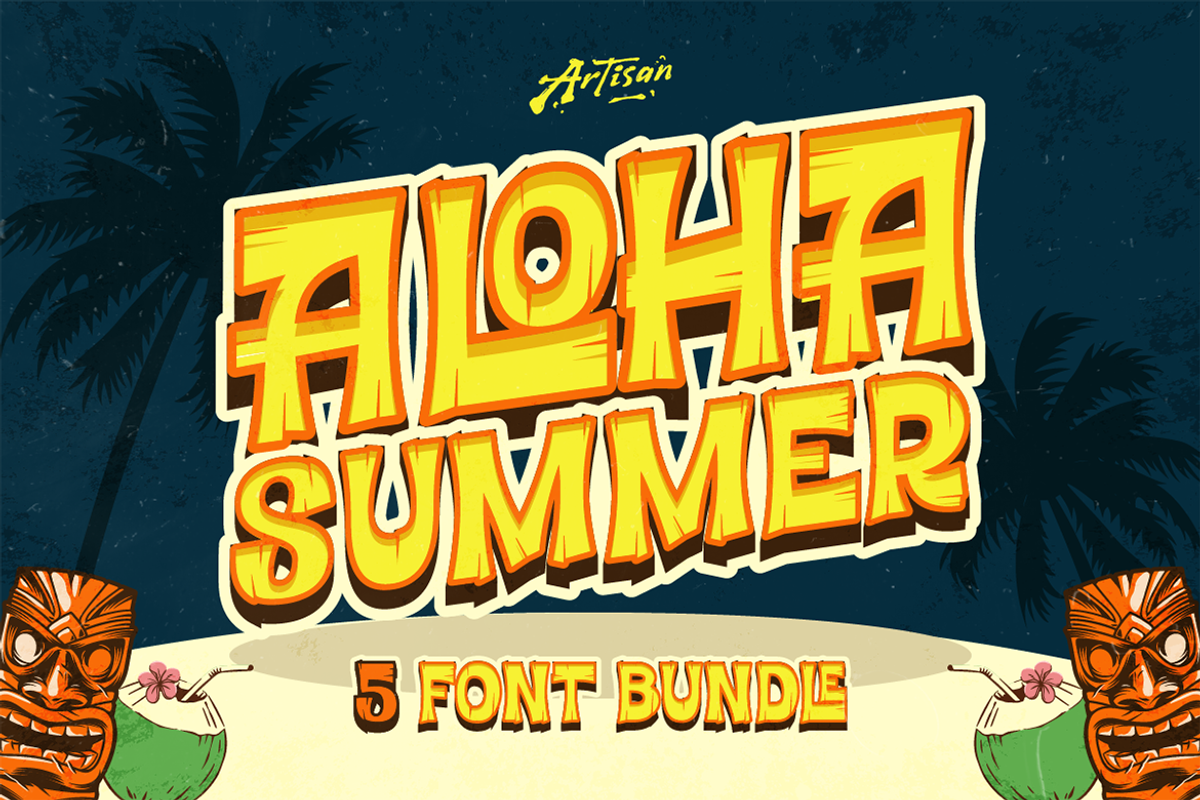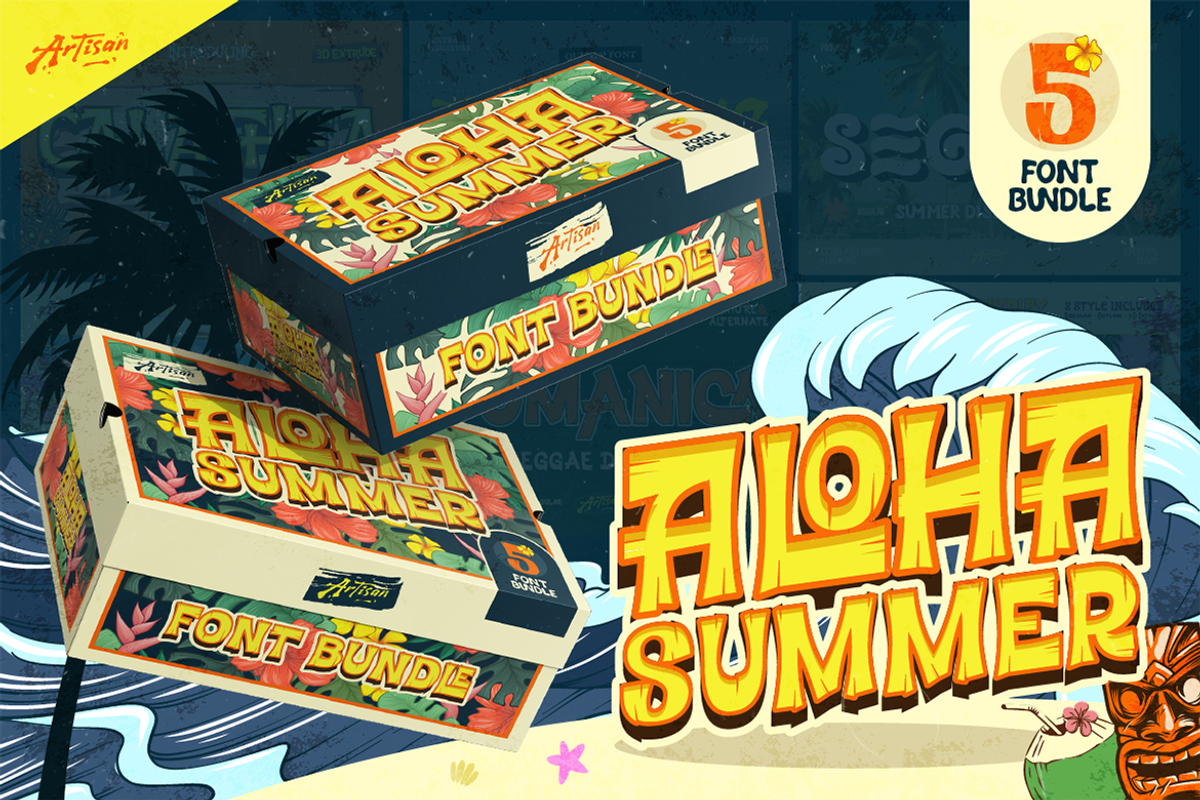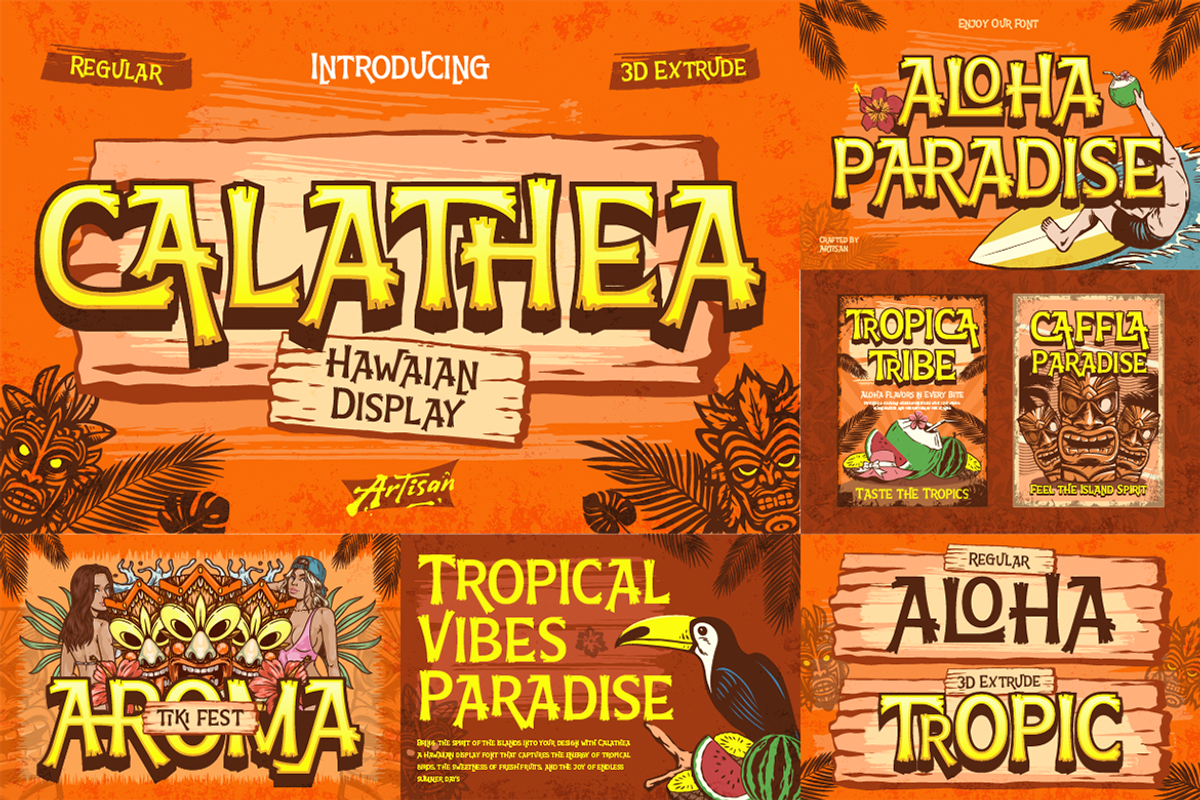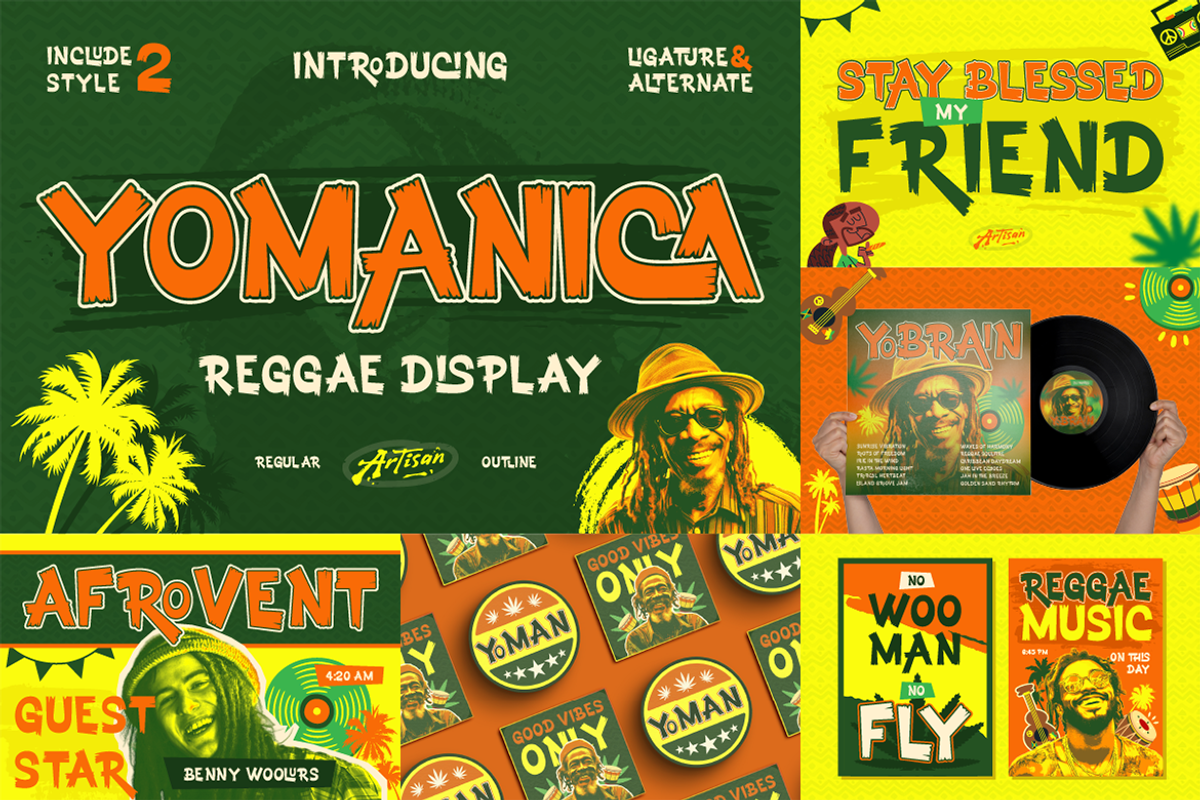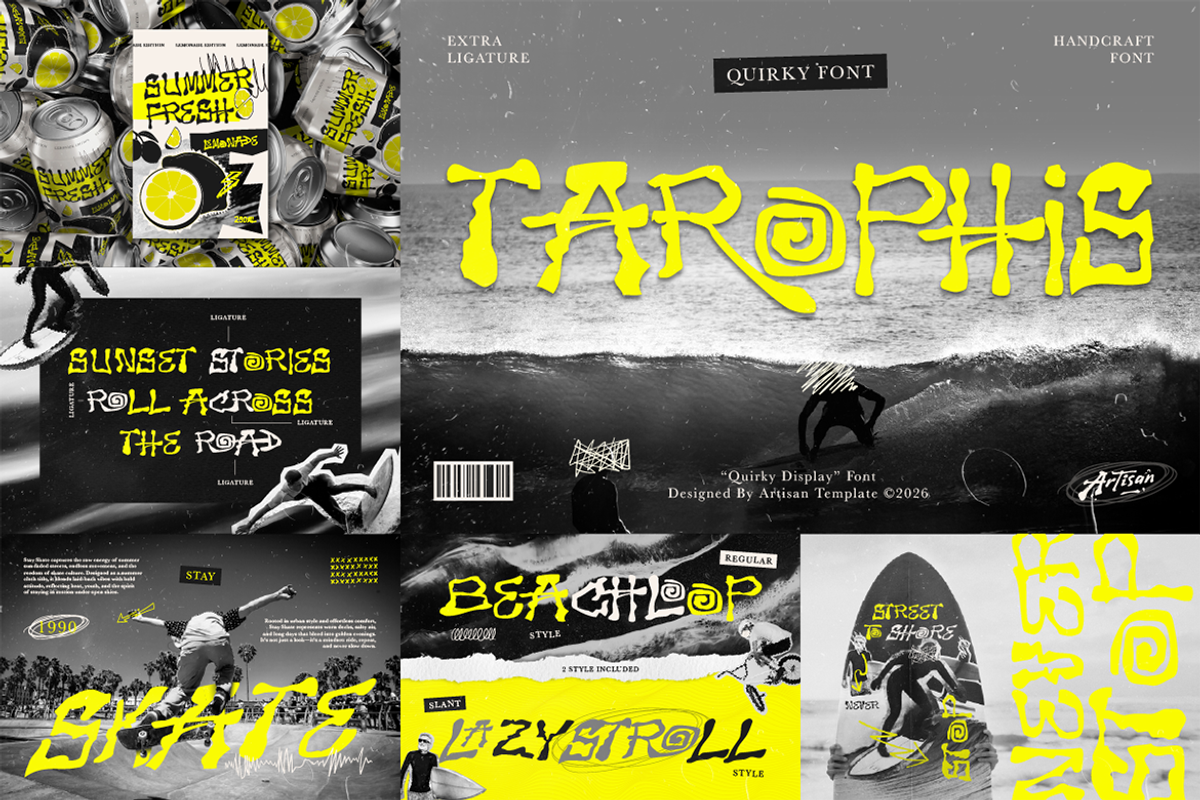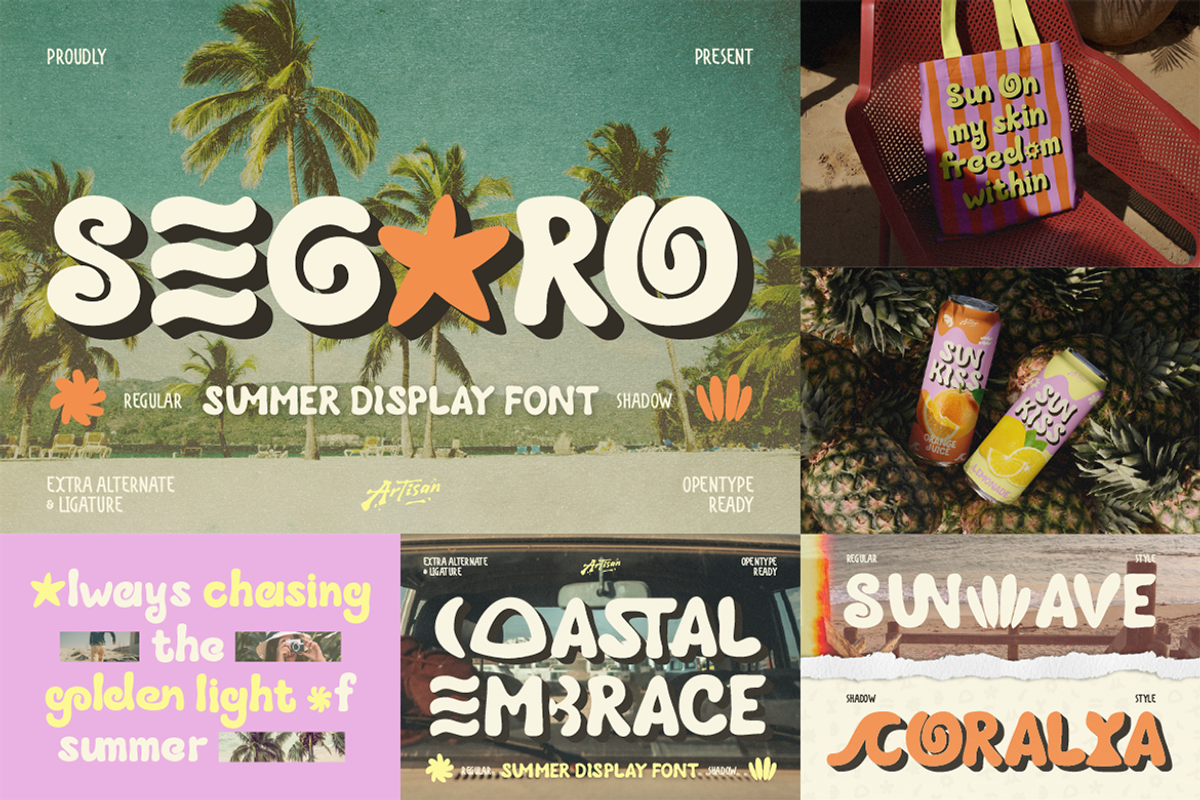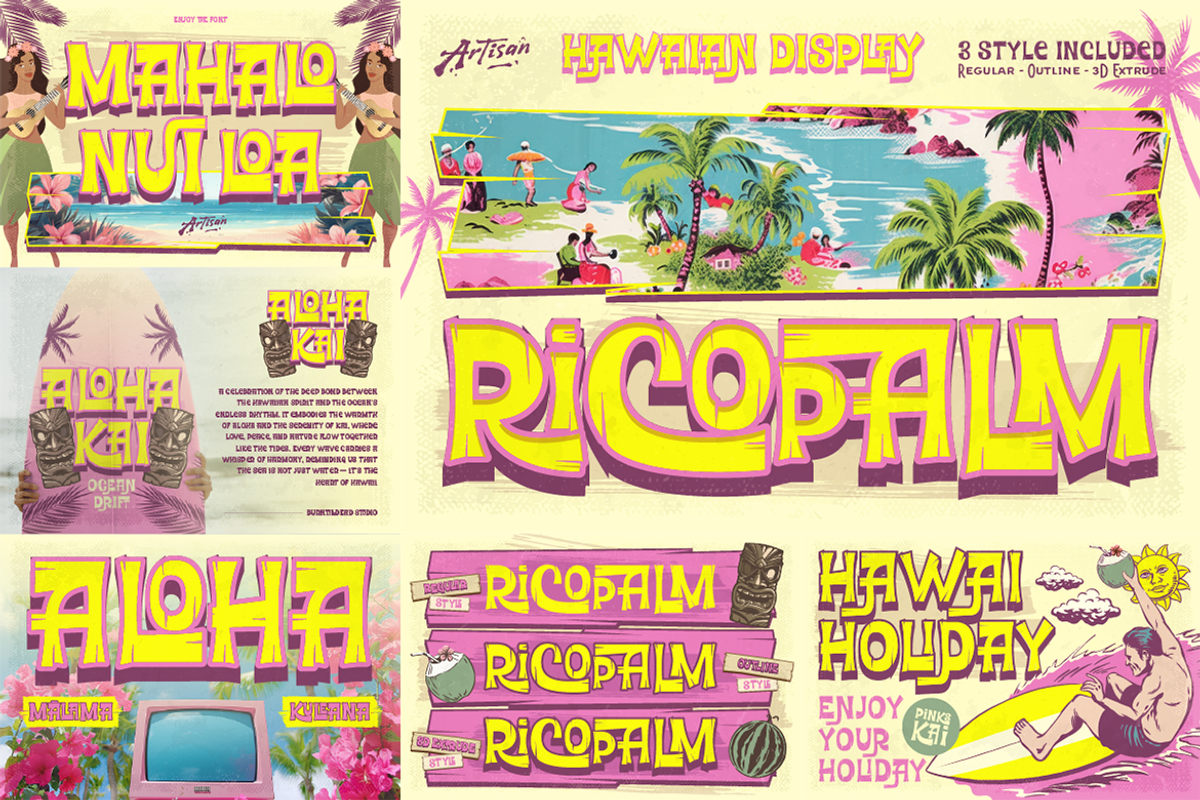
Aloha Summer Font Bundle
Bring the heat, the breeze, and the island vibes into your designs with the Aloha Summer Font Bundle! This tropical inspired collection is packed with bold, playful, and eye catching fonts that instantly give your work that sunny, laid-back Hawaiian feel. Inside this bundle, you’ll get 5 unique fonts: Calathea, Tarophis, Segaro, Ricopalm, and Yomanica, each one crafted with its own personality, but all sharing that warm, tropical energy. From beach party posters to summer branding, these fonts are perfect for:
- Summer-themed designs
- Tropical branding & packaging
- Beach event posters
- T-shirt & merch design
- Social media content
- Logo design with a fun twist
Each font comes with strong character shapes, bold strokes, and playful details that make your typography stand out instantly. Whether you’re going for a retro surf vibe, Hawaiian aesthetic, or just something fun and bold, this bundle has you covered.